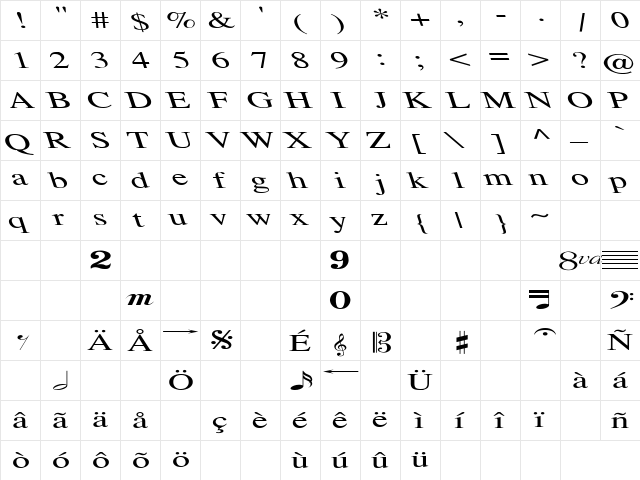
Tempo Font Ex Left Regular
Design Context for Tempo Font Ex Left Typeface
Tempo Font Ex Left offers clean, dependable letterforms without strong stylistic allegiance, making it a practical choice for designers who need flexibility.